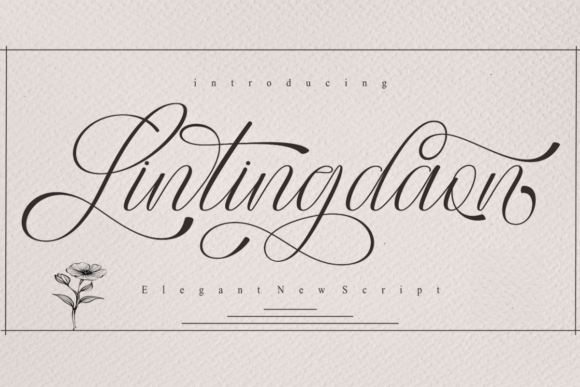
Step into the world of Lintingdaon Script Font, an elegant and enchanting creation that will ignite your imagination and redefine your design possibilities. This captivating script font possesses a captivating allure, embodying romance and softness in every delicate stroke. Unleash your creativity and craft breathtaking wedding invitations that exude timeless elegance, cards that convey heartfelt emotions, packaging that elevates your brand's presence, and logos that radiate sophistication. With Lintingdaon Script Font, the possibilities are limitless.
Lintingdaon Script Font's captivating swashes dance across the page like a symphony of grace, adding a touch of whimsy and charm to every project. Its romantic undertones evoke a sense of nostalgia and warmth, making it the perfect choice for creating designs that tug at the heartstrings. Whether you're a seasoned designer or just starting your creative journey, Lintingdaon Script Font will empower you to create designs that leave a lasting impression.
Immerse yourself in the boundless versatility of Lintingdaon Script Font. Its carefully crafted characters seamlessly adapt to a wide range of design projects, effortlessly enhancing their visual appeal. From digital designs to print projects, Lintingdaon Script Font transforms ordinary into extraordinary. Its ability to elevate your designs is truly remarkable, making it a must-have for any designer seeking to make a statement.
Step into a world of inspiration and let Lintingdaon Script Font ignite your creativity. Its endless possibilities and captivating beauty await your exploration. Download Lintingdaon Script Font today and embark on a journey of design excellence. Transform your visions into tangible masterpieces, leaving a lasting impact on your audience.